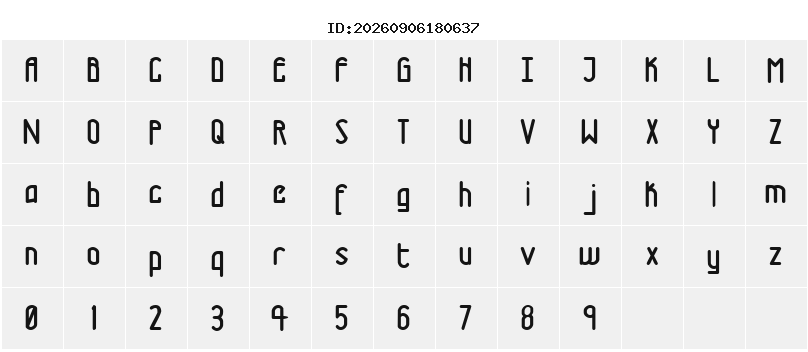
TM Tramway Preview
• Font Name: TM Tramway
• Full Font Name: TM Tramway Normal
About TM Tramway.ttf
TM Tramway.ttf is a modern, elegant sans-serif font designed for ultimate readability and visual harmony. Perfect for branding, headlines, web design, and print materials.